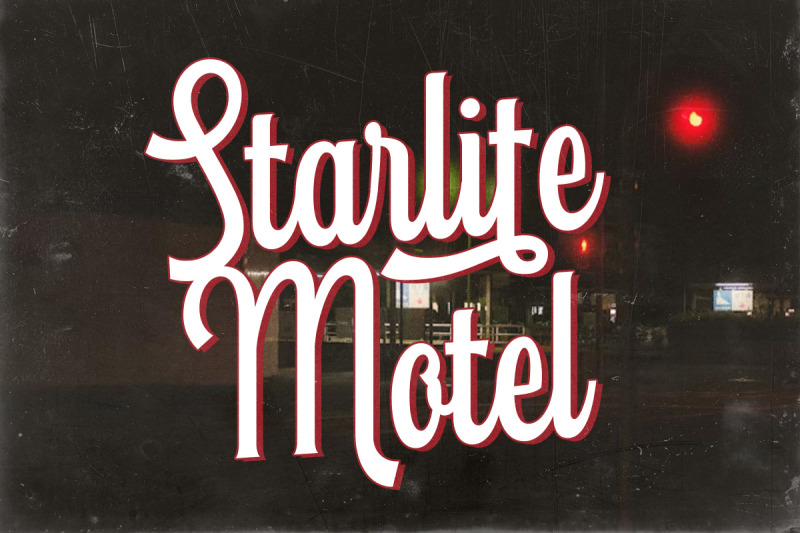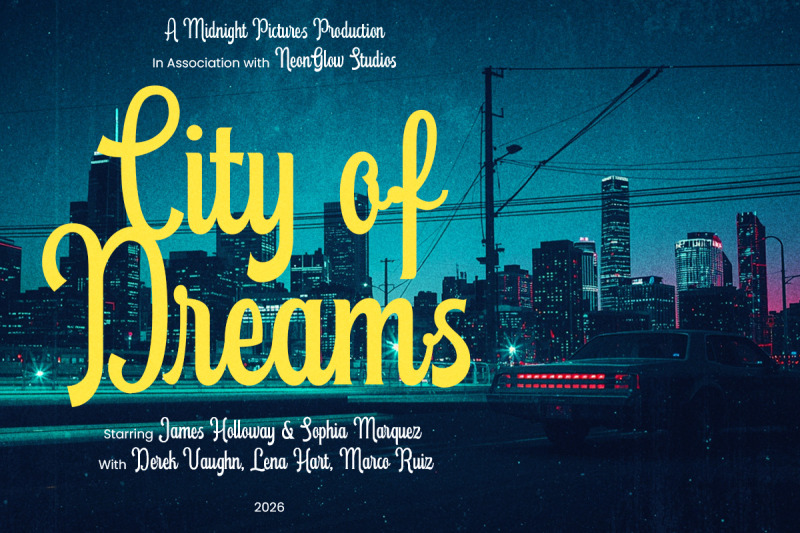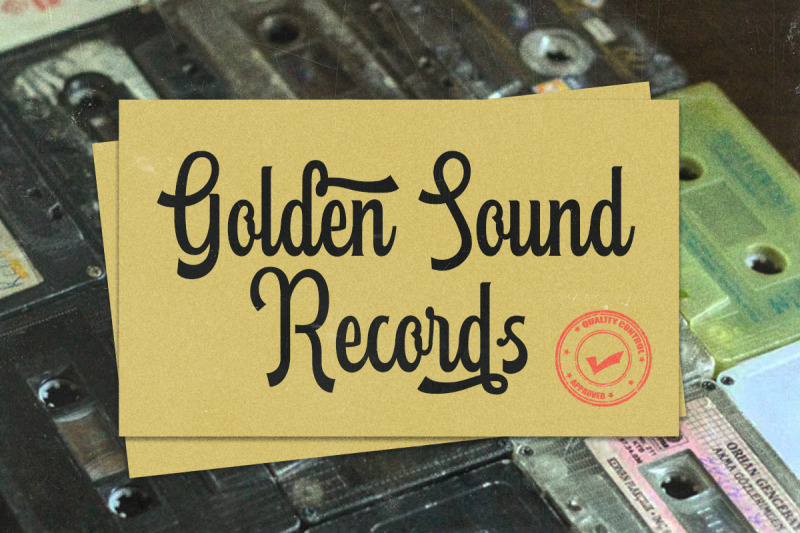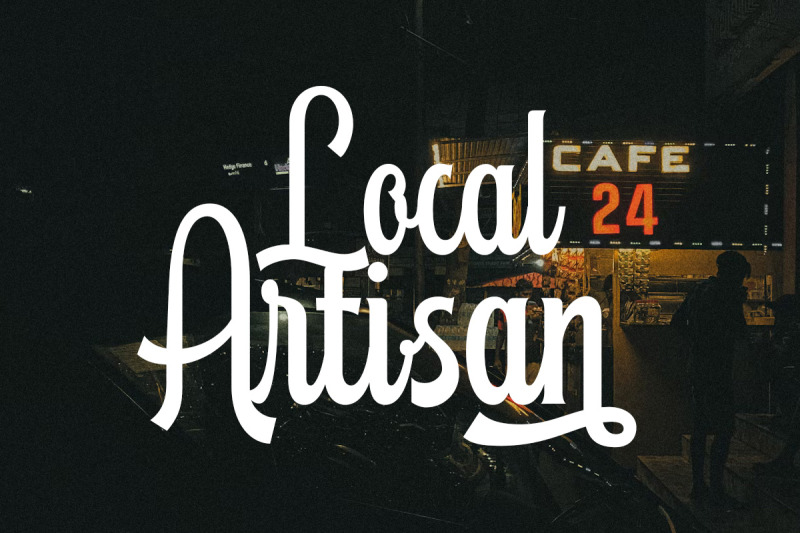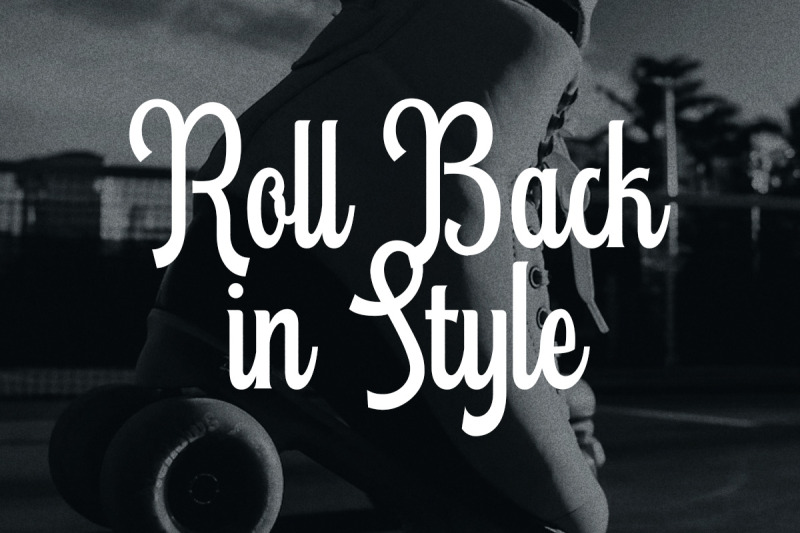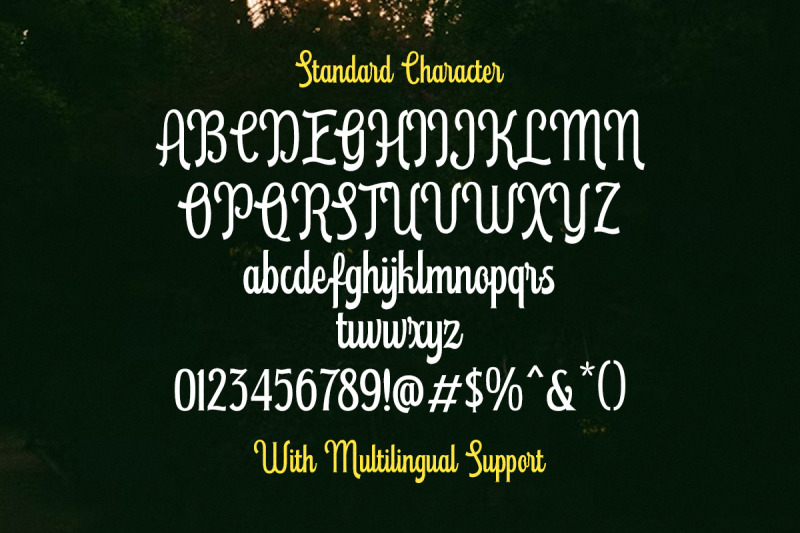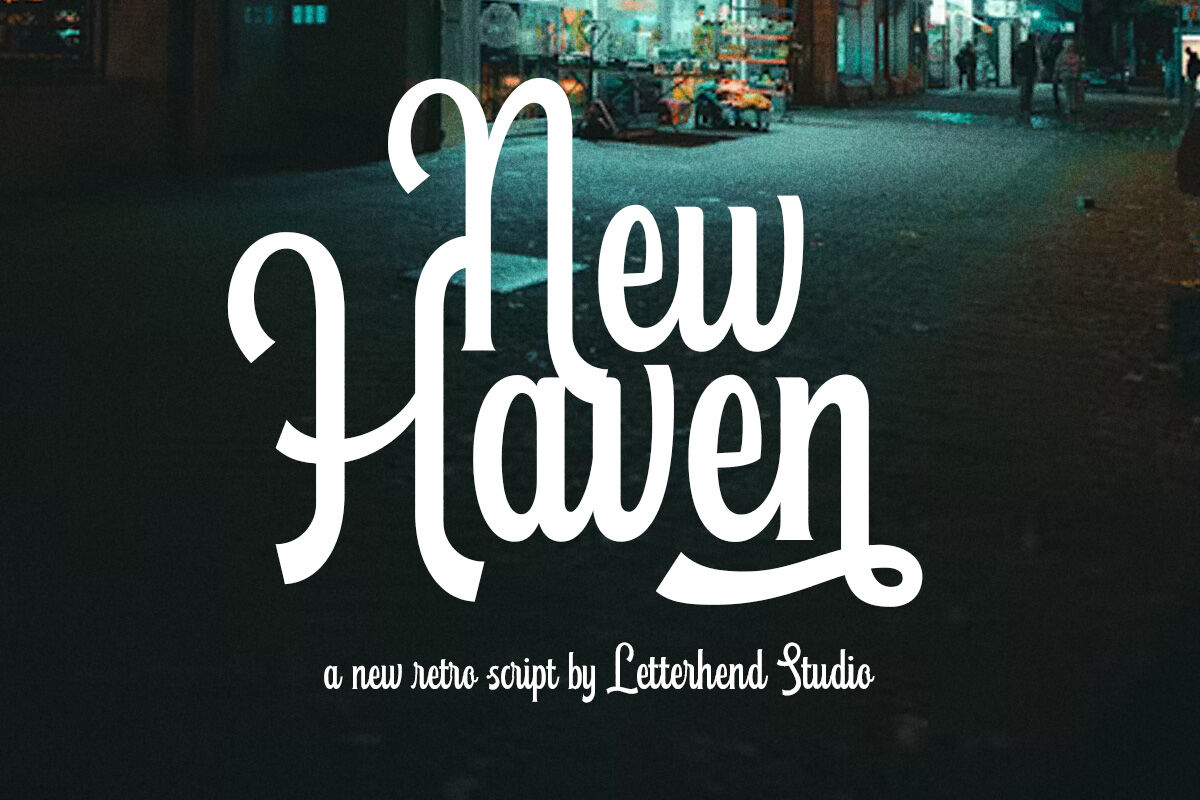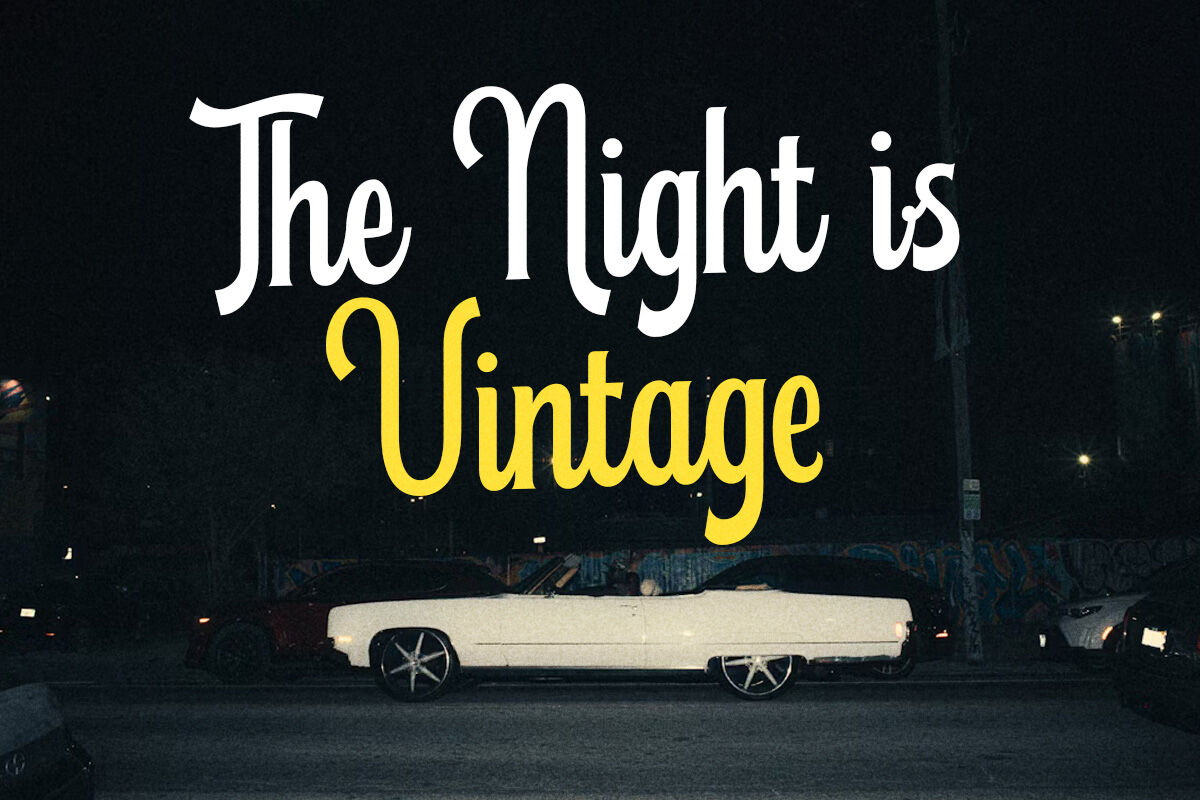
New Haven is a bold retro script font with a striking mix of vintage charm and modern flair. Its smooth curves and stylish swashes give it a confident, timeless look that works beautifully for logos, posters, signage, branding, and packaging. With its strong character and nostalgic vibe, New Haven instantly brings a touch of classic Americana while staying fresh and versatile for contemporary design projects. It’s the kind of font that makes any headline or wordmark feel iconic and memorable.
Features :
Uppercase & lowercase
Numbers and punctuation
Alternates/Ligatures
Multilingual Support